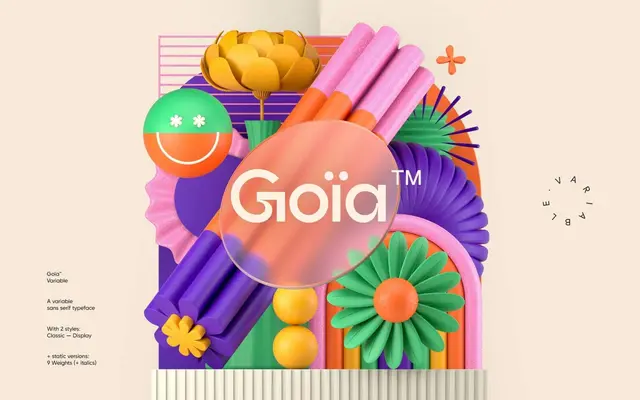
Goïa
Almarena · Jérémie Gauthier · 2023
Goïa specimen from Almarena
A geometric variable sans by Jérémie Gauthier, offered in Classic and Display optical styles across nine weights with two variation axes.
Designed by Jérémie Gauthier and released in 2023, Goïa draws on the rationalist tradition of Bauer and ITC foundries whilst introducing softened, rounded forms. The family ships as a variable font with weight and italic axes, alongside static OTF files for nine weights per style. Classic and Display subfamilies allow it to move between running text and headline work without compromise.
Goïa is a geometric sans with rounded terminals and a constructivist influence, referencing the Bauer and ITC aesthetic canons. Its circular forms and rationalist structure place it firmly in the geometric sans tradition.